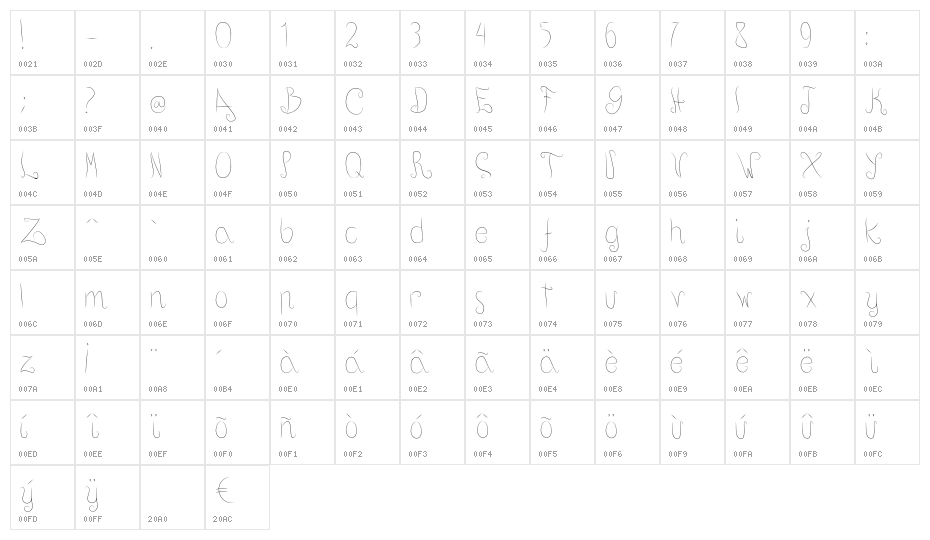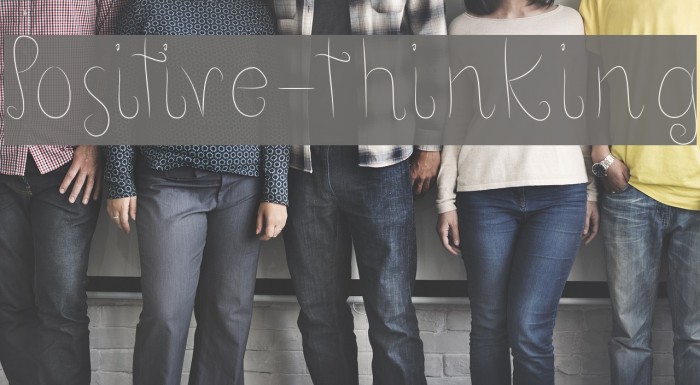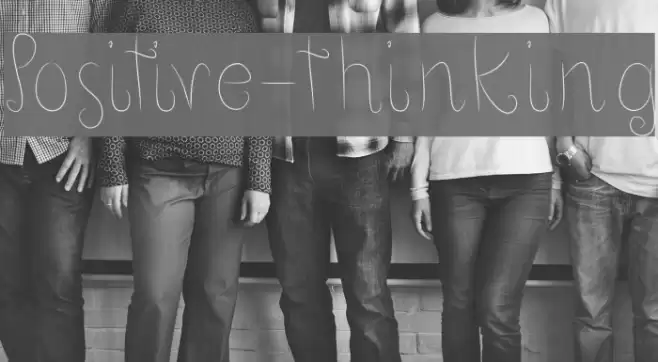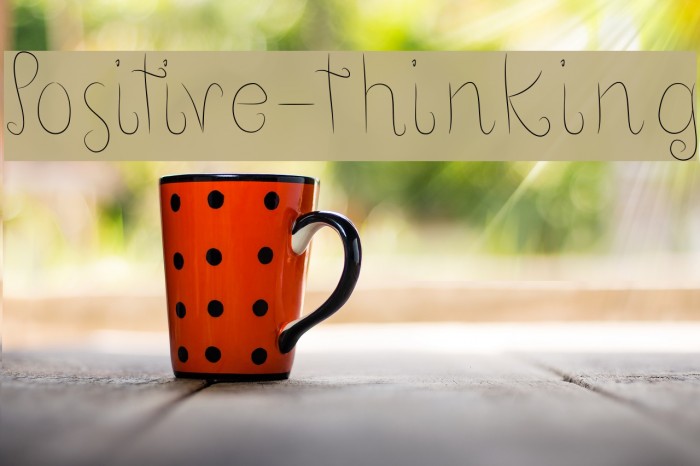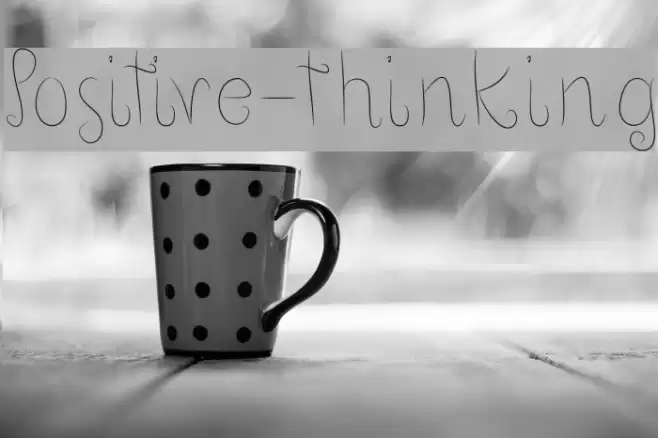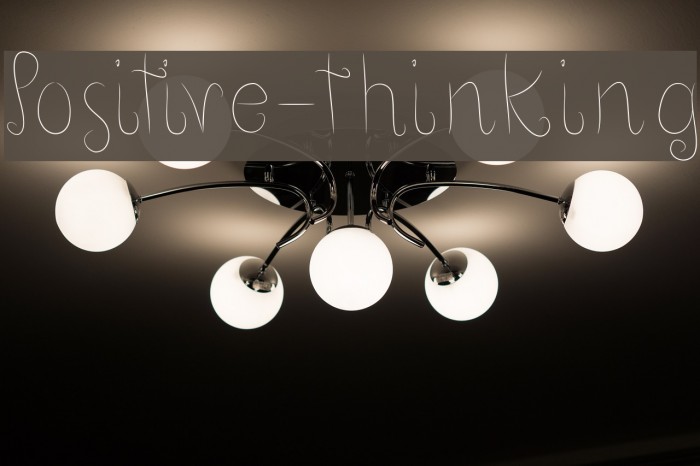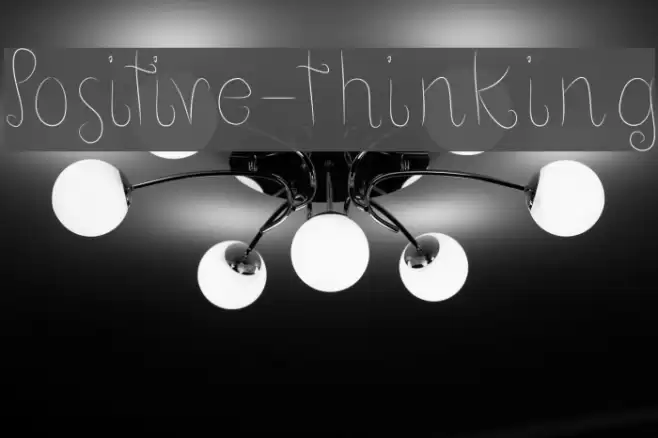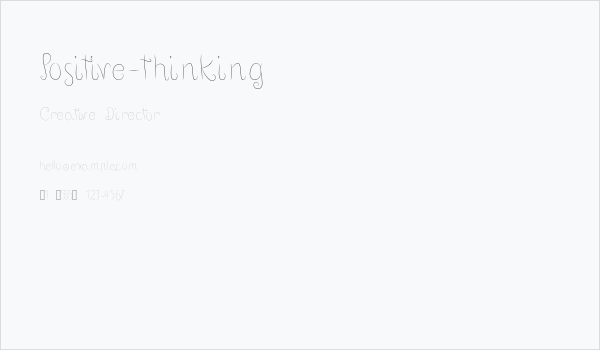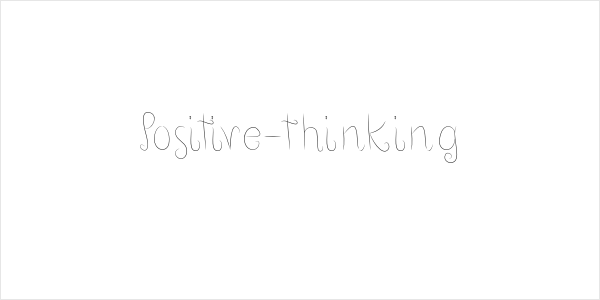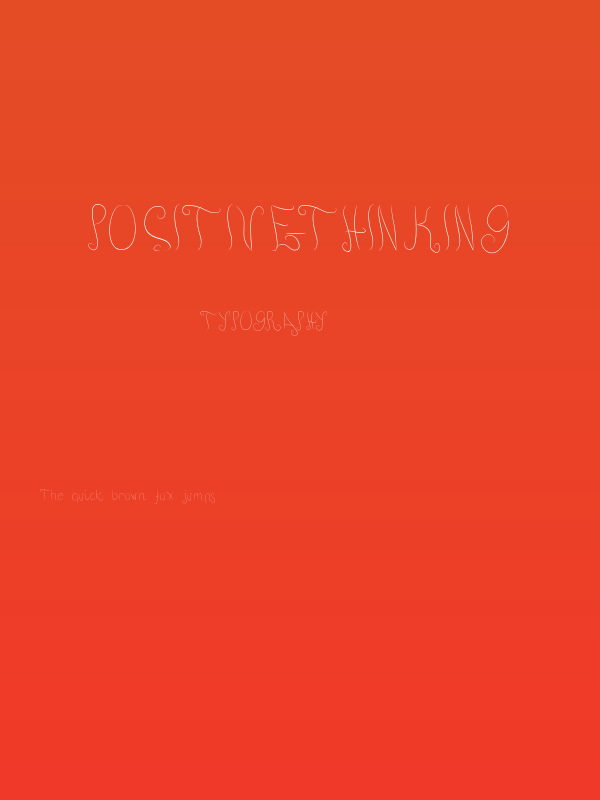
Positive-thinking Font
Positive-thinking Description
This font features an elegant and whimsical design, characterized by its thin, flowing strokes and playful curls. The uppercase letters exhibit a unique blend of curves and straight lines, giving them a sophisticated yet approachable appearance. Lowercase letters maintain a consistent style, with some characters featuring distinctive loops and swirls that add to the font's charm. The numerals are crafted with the same delicate touch, ensuring a cohesive look across all characters. Special characters are thoughtfully designed to match the overall aesthetic, making this font versatile for various creative projects.